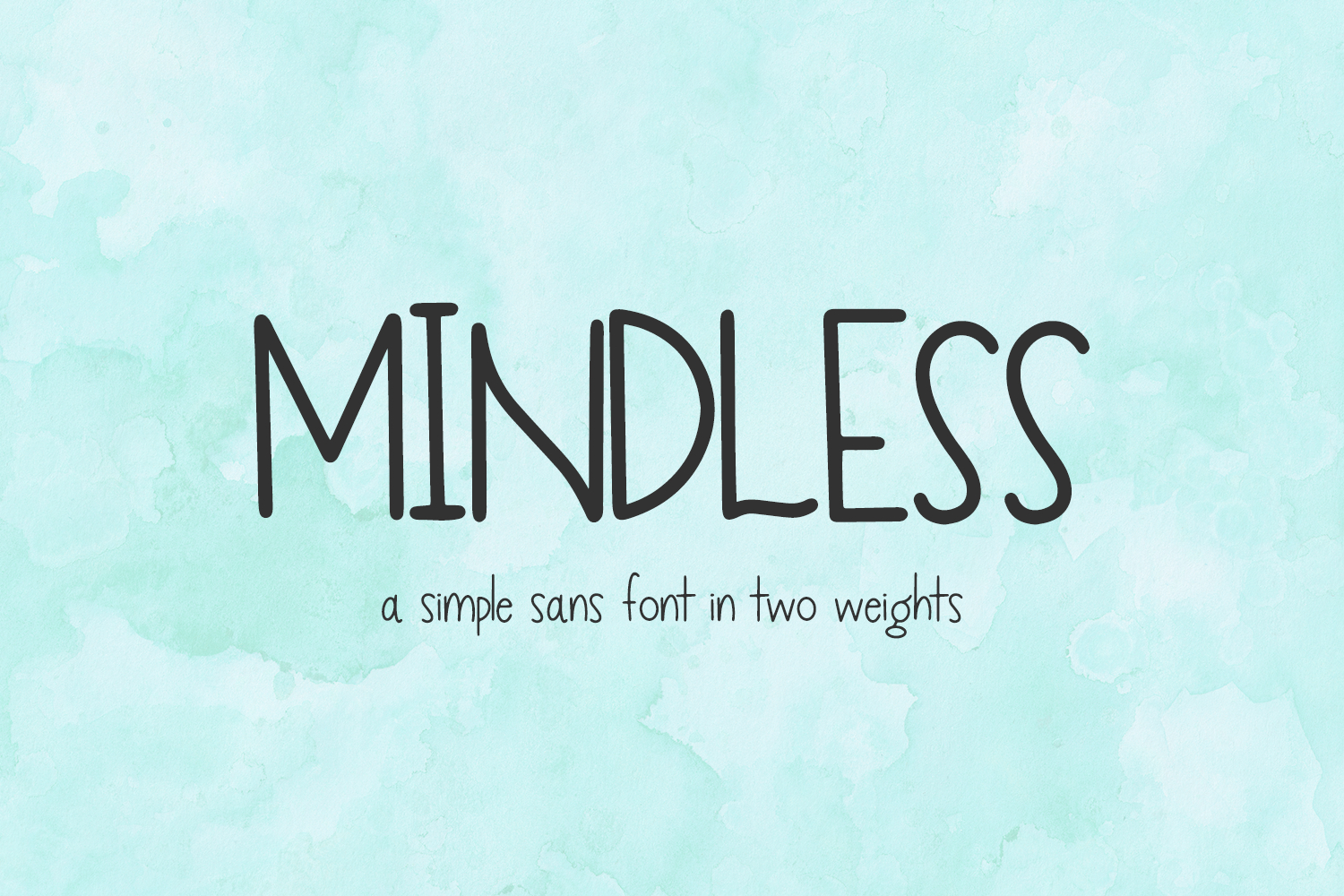
Mindless Sans is a handwritten printed font that comes in two weights - regular and bold.
Mindless is best for:
- logos + branding for kid-centric brands
- design items like shirts, coffee mugs, & more
- Cricut and Silhouette projects
- other crafting projects
- school or classroom projects